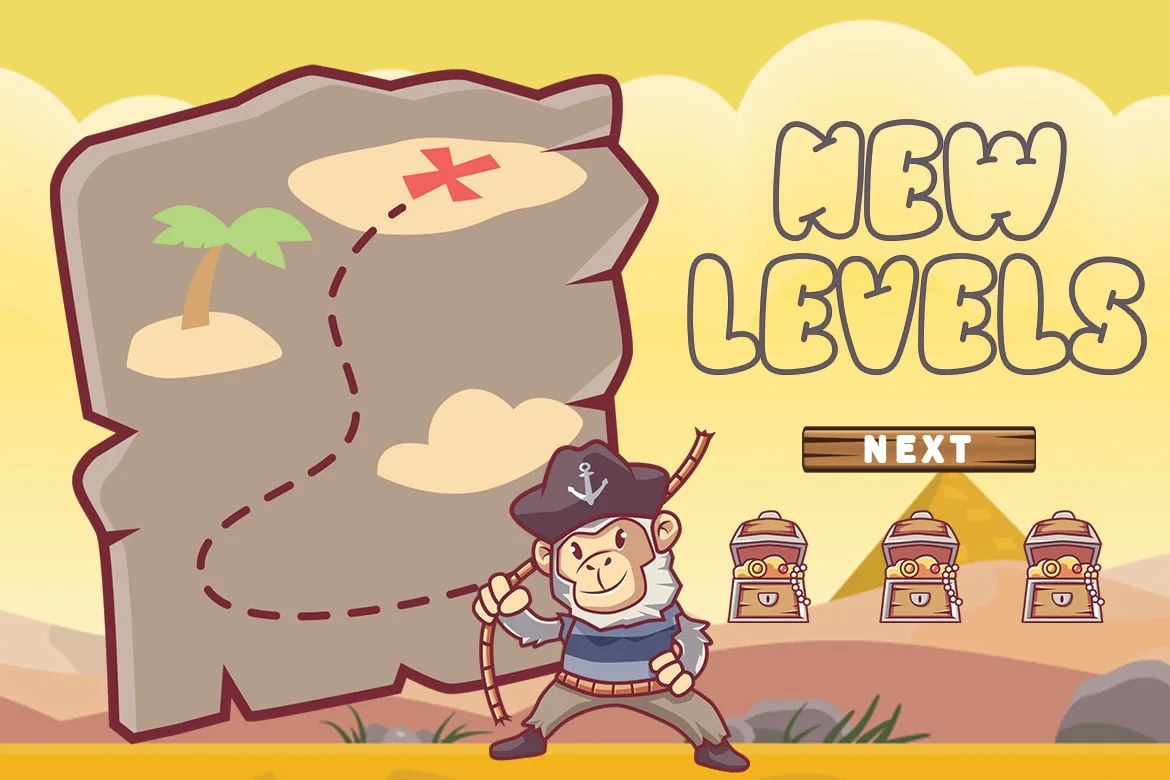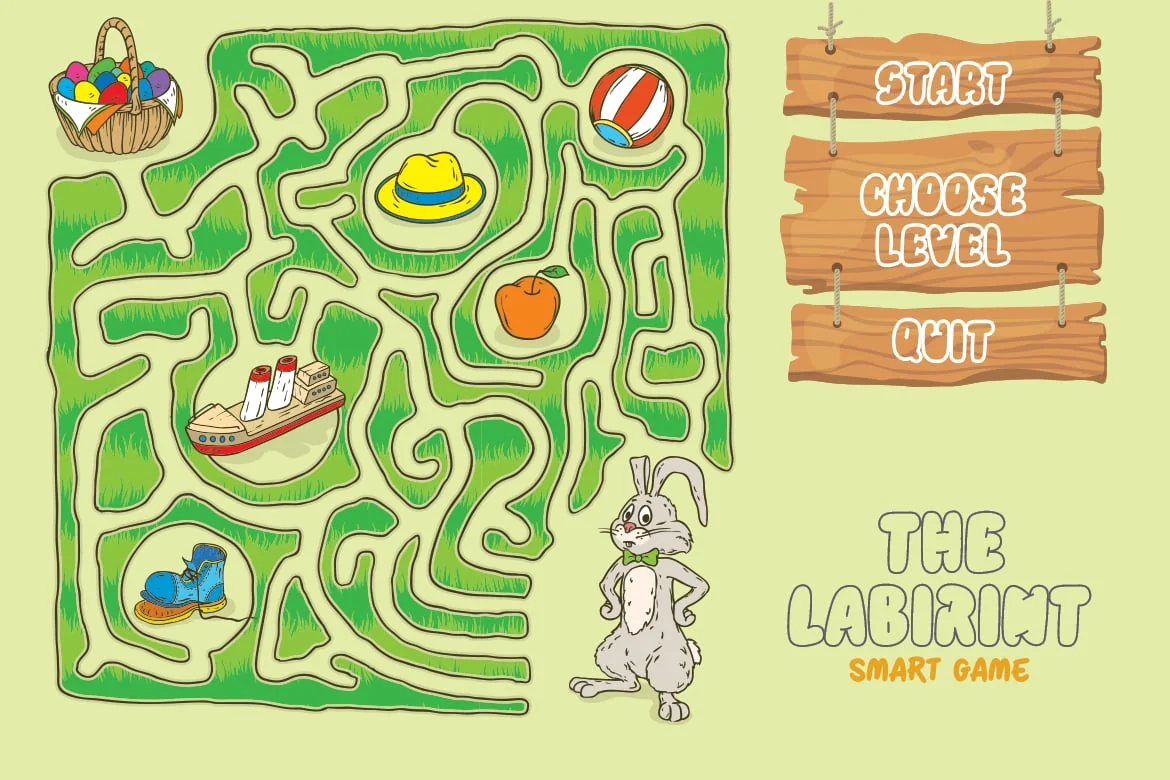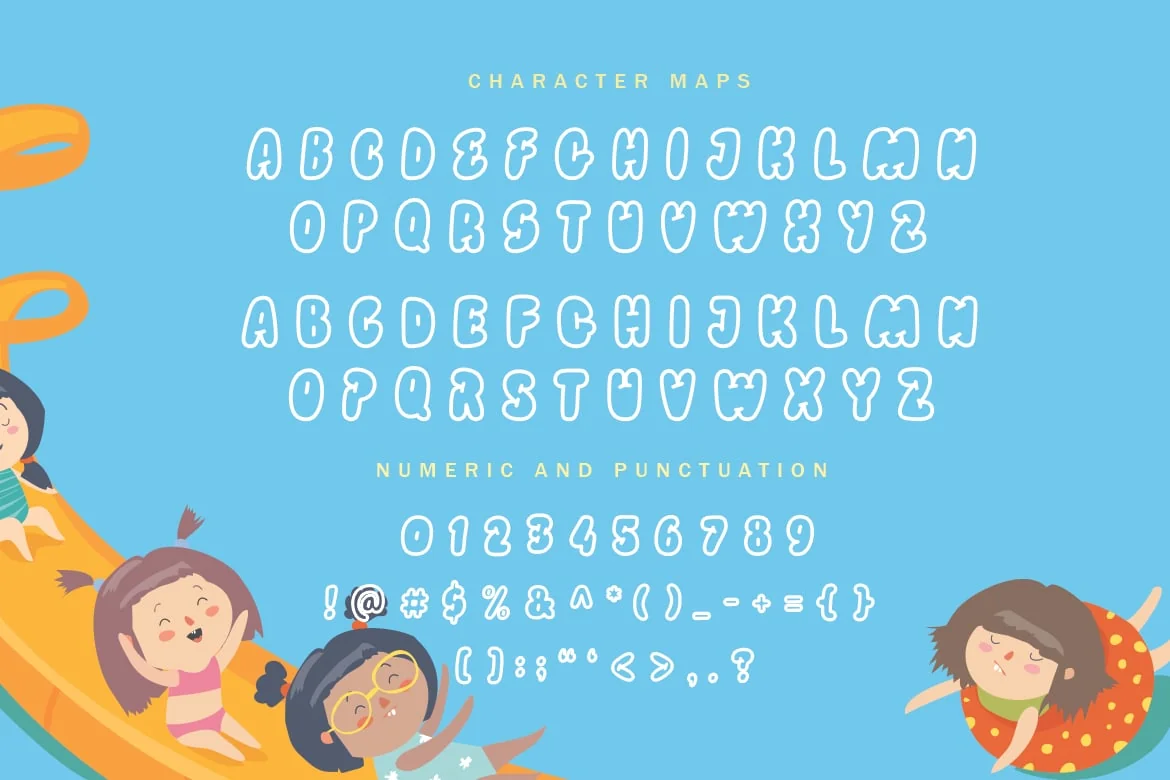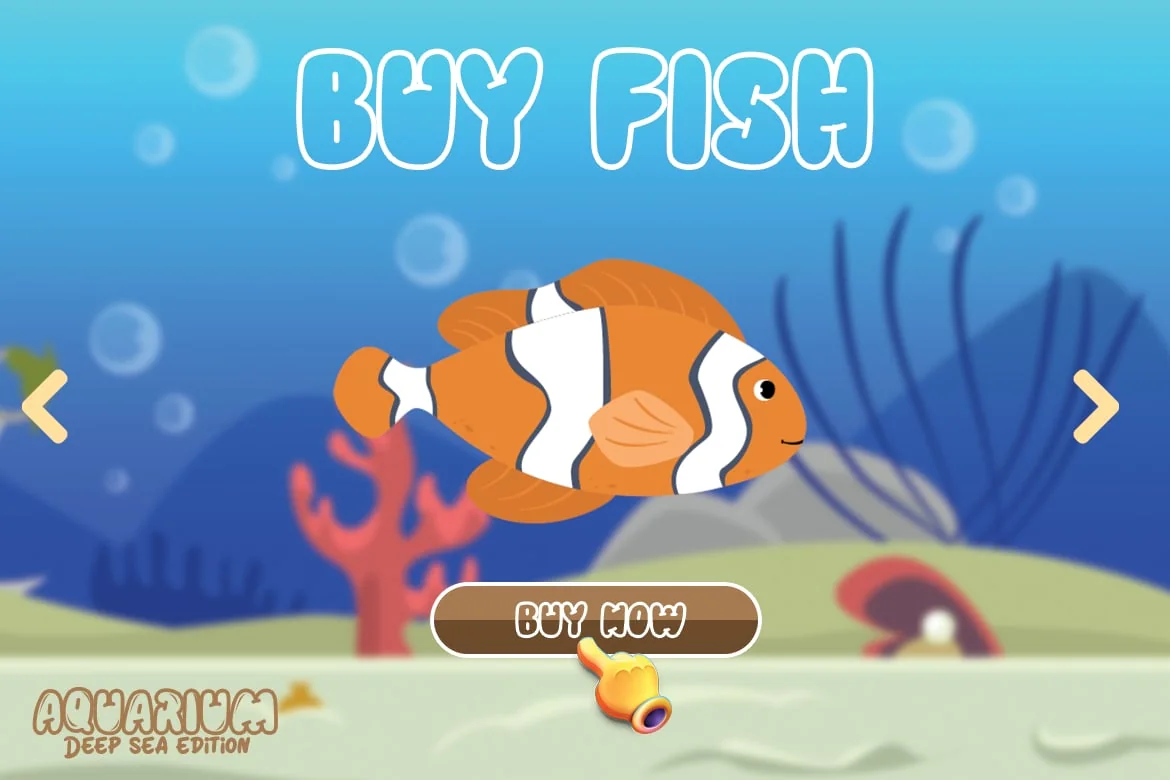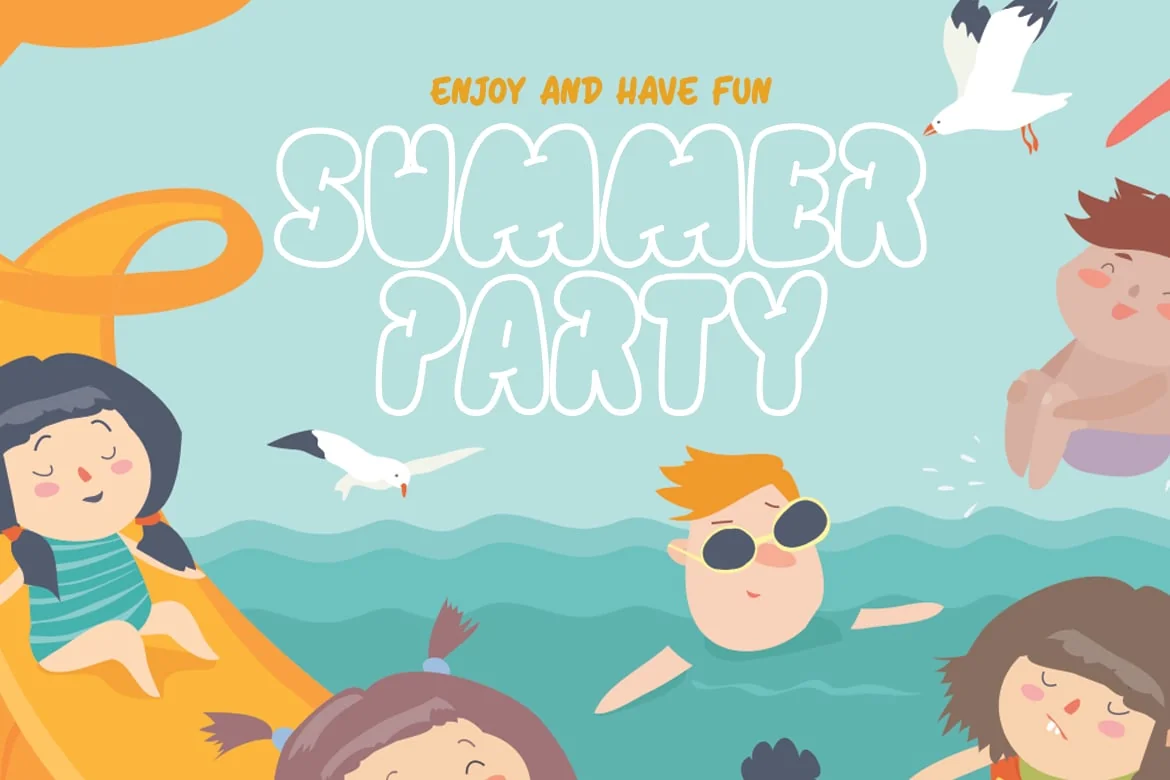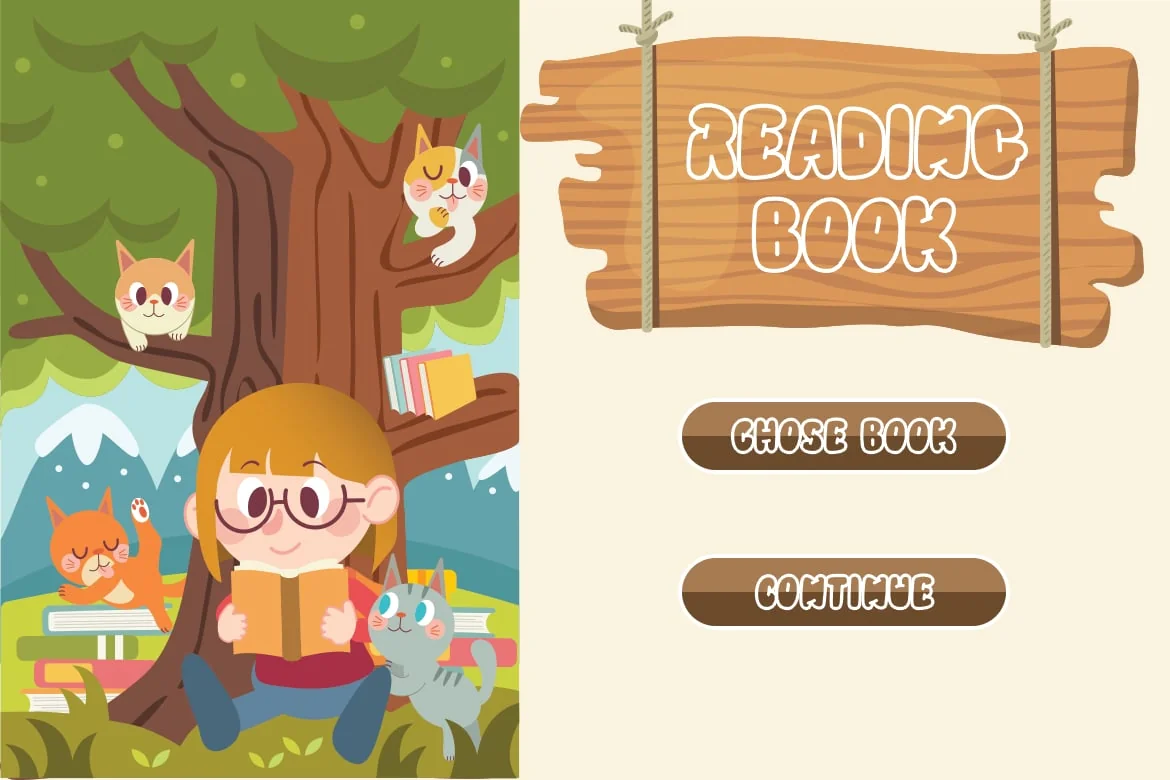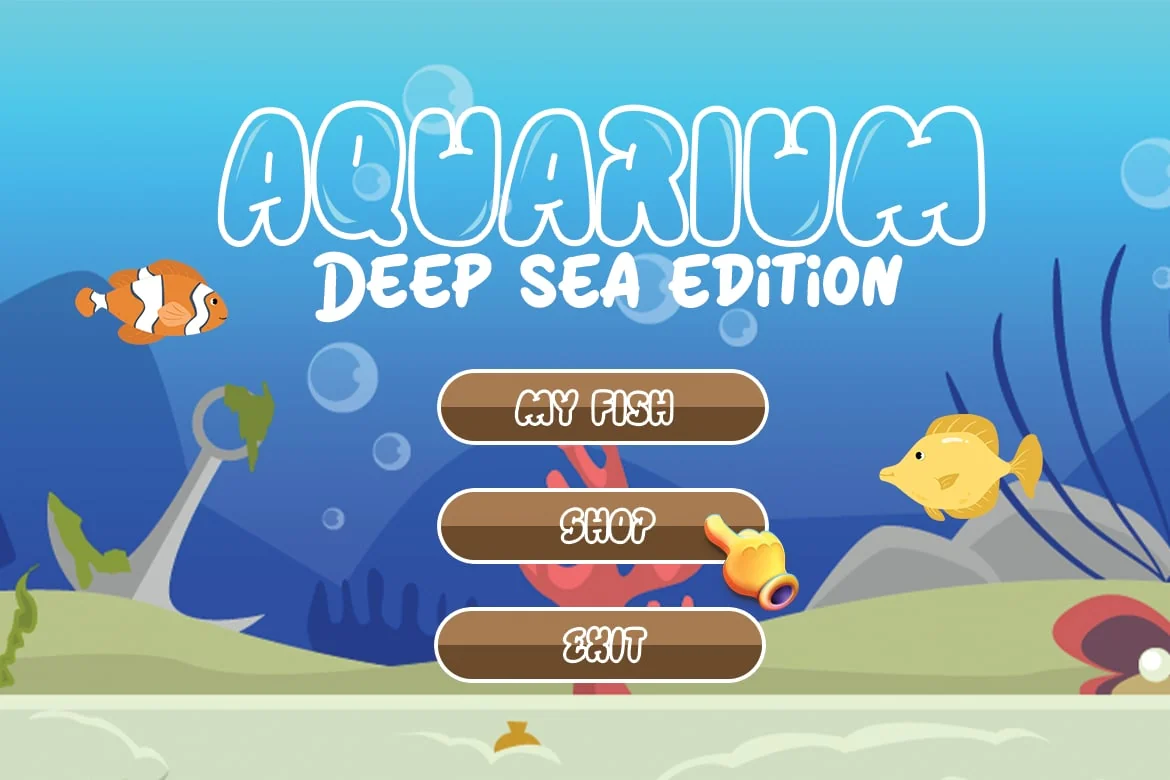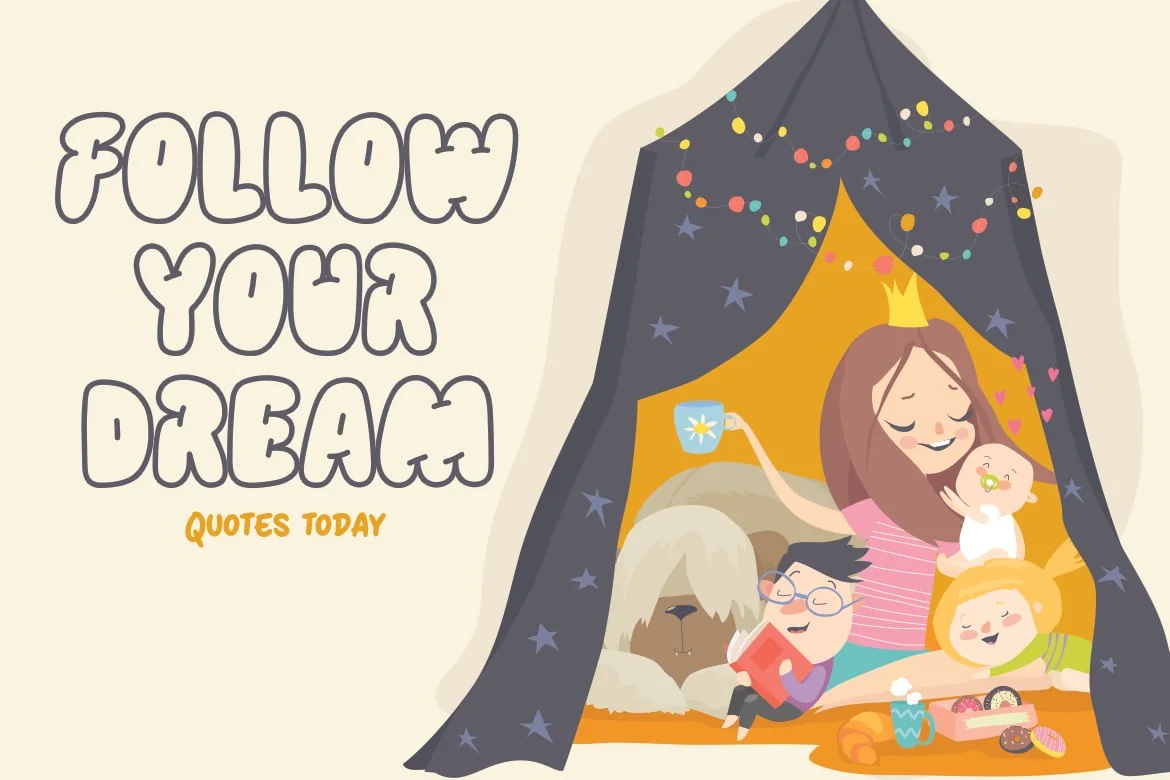
Blobber- Kids font
With cute blobby cartoon shape, Blobber is a funny font that will grab the children attention instantly.
Suit perfectly for Online Games, poster, movie title, fast food menu, magazine, youtube covers, youtube thumbnails, social media page covers and so on…